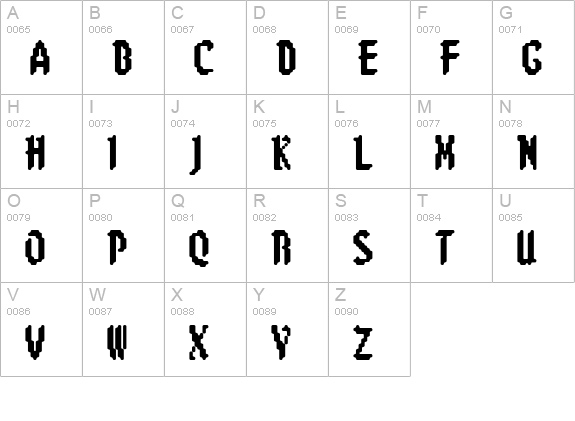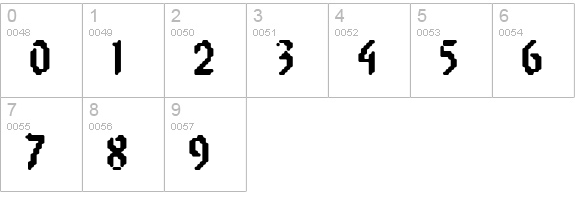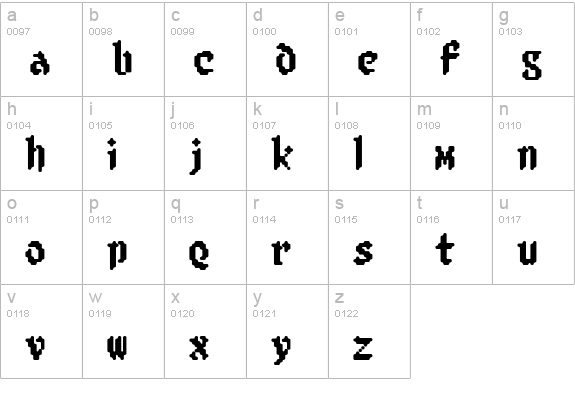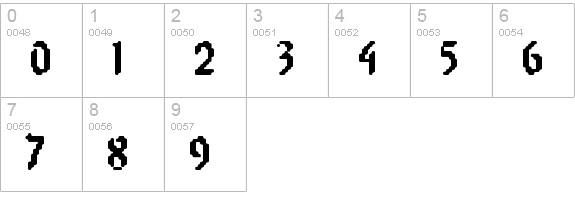
8-bit Limit R (BRK) Font Details
The 8-bit Limit R (BRK) font is a charming and nostalgic typeface that brings a retro pixelated aesthetic to your designs. With its blocky characters and vintage video game-inspired look, this font is perfect for adding a touch of old-school flair to your projects. The 8-bit Limit R (BRK) font is versatile and can be used for various design purposes, from posters to websites to video game graphics. Best of all, this font is completely free to download at FontsMarket.com, making it accessible to anyone looking to add a bit of retro charm to their work. Whether you're a seasoned designer or just starting out, the 8-bit Limit R (BRK) font is a fun and playful choice that will surely make your designs stand out.